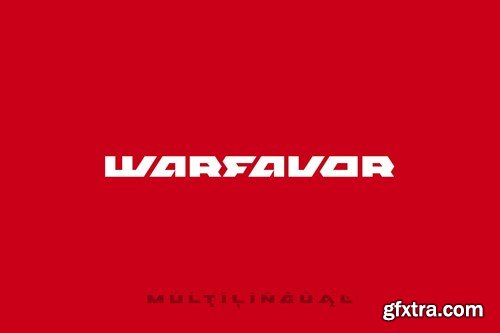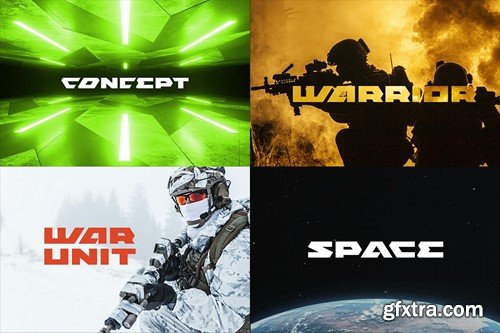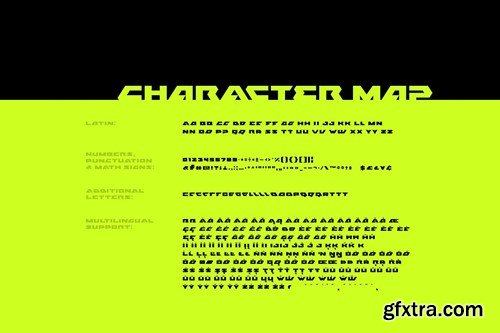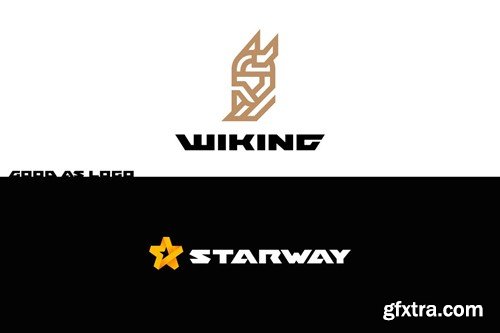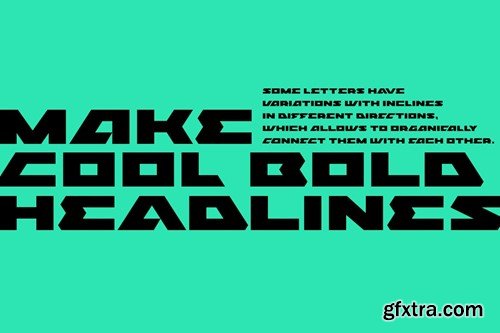
WARFavor Font 6H4EPNV
Warfavor Font
Warfavor Font Warfavor font is designed to create strong bold stylish headlines. Some letters have theirs variations of different inclines, which allows to organically connect the letters with each other. Supported Languages: Bosnian, Catalan, Czech, Danish, German, English, Spanish, Estonian, Finnish, French, Irish, Croatian, Hungarian, Icelandic, Italian, Lithuanian, Latvian, Maltese, Norwegian, Polish, Portuguese, Romanian, Slovak, Slovenian, Albanian, Swedish, Turkish. --- ZIP includes: